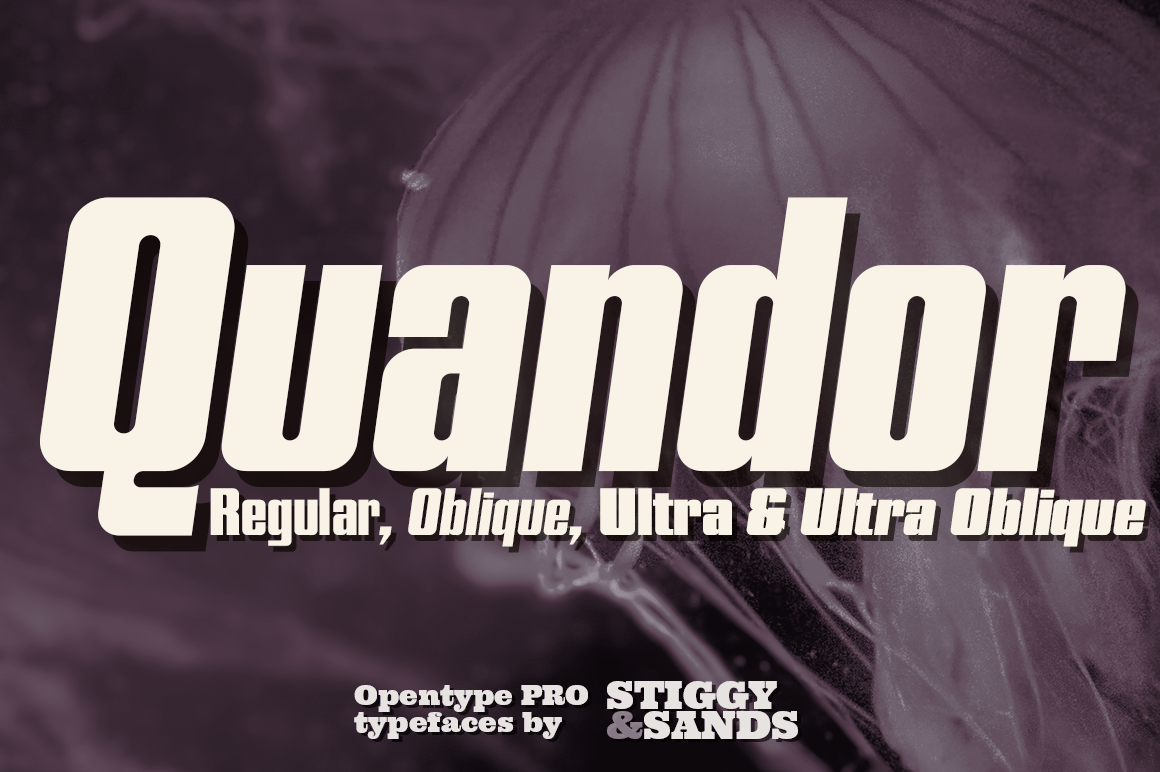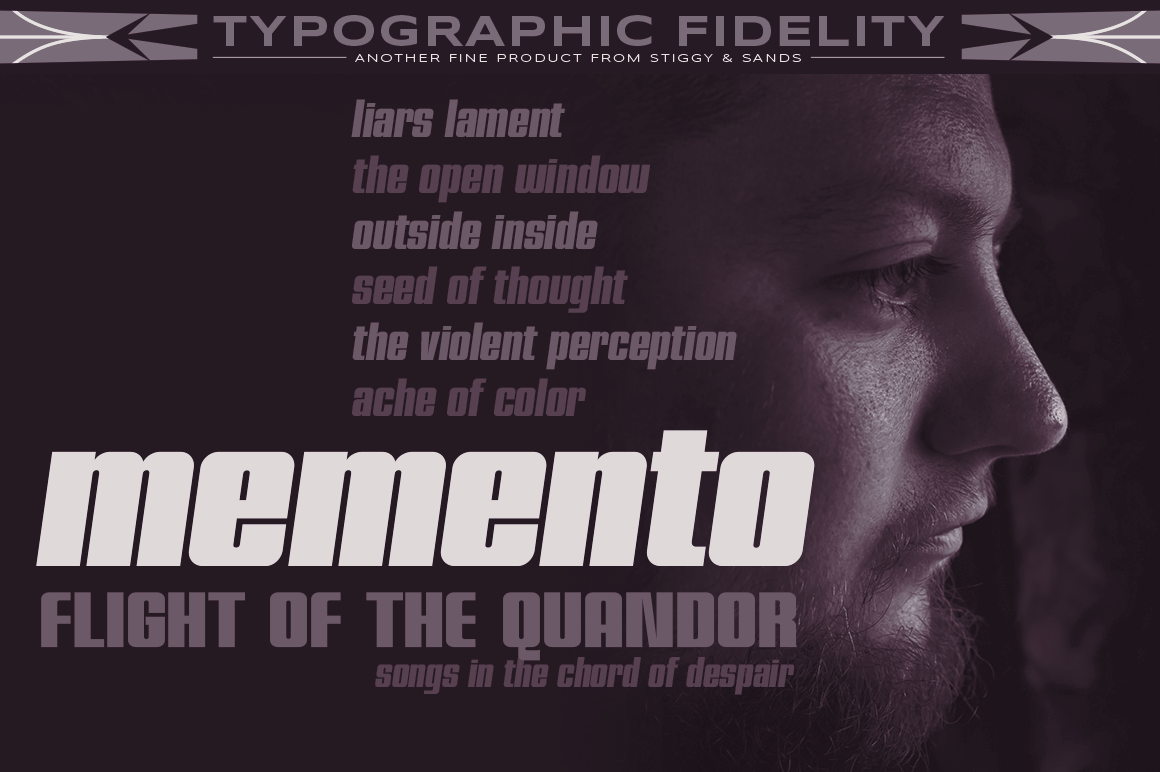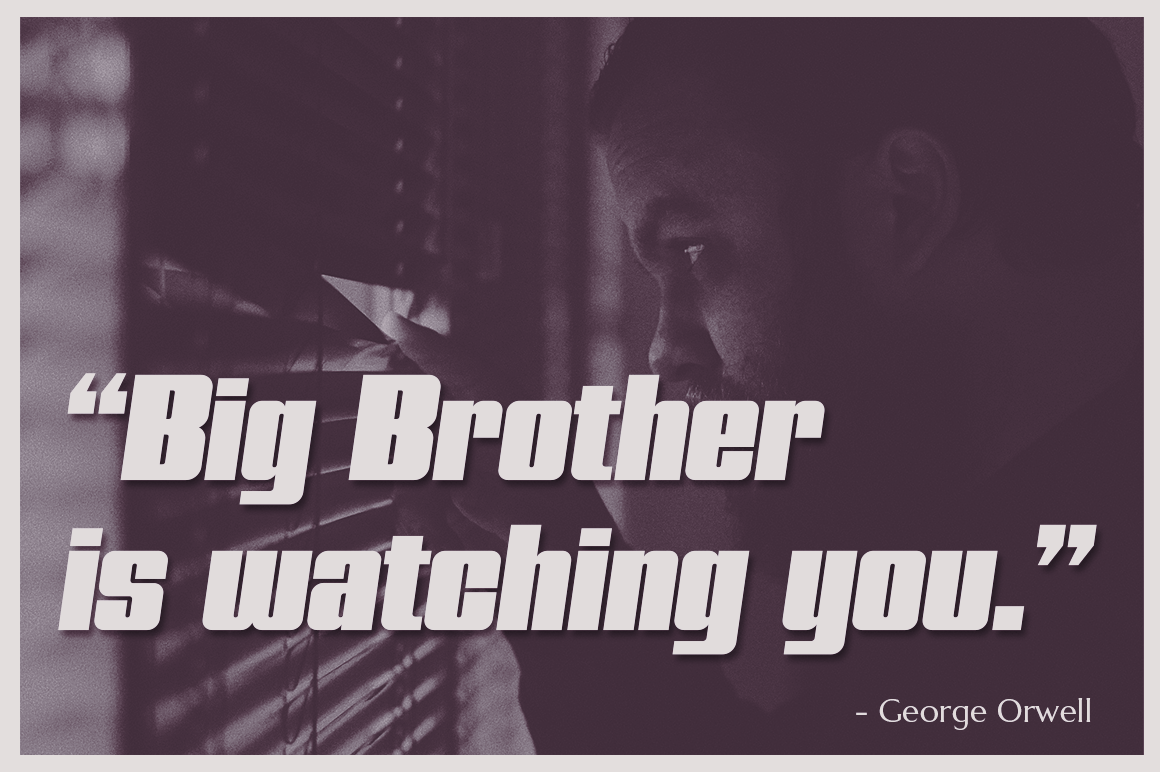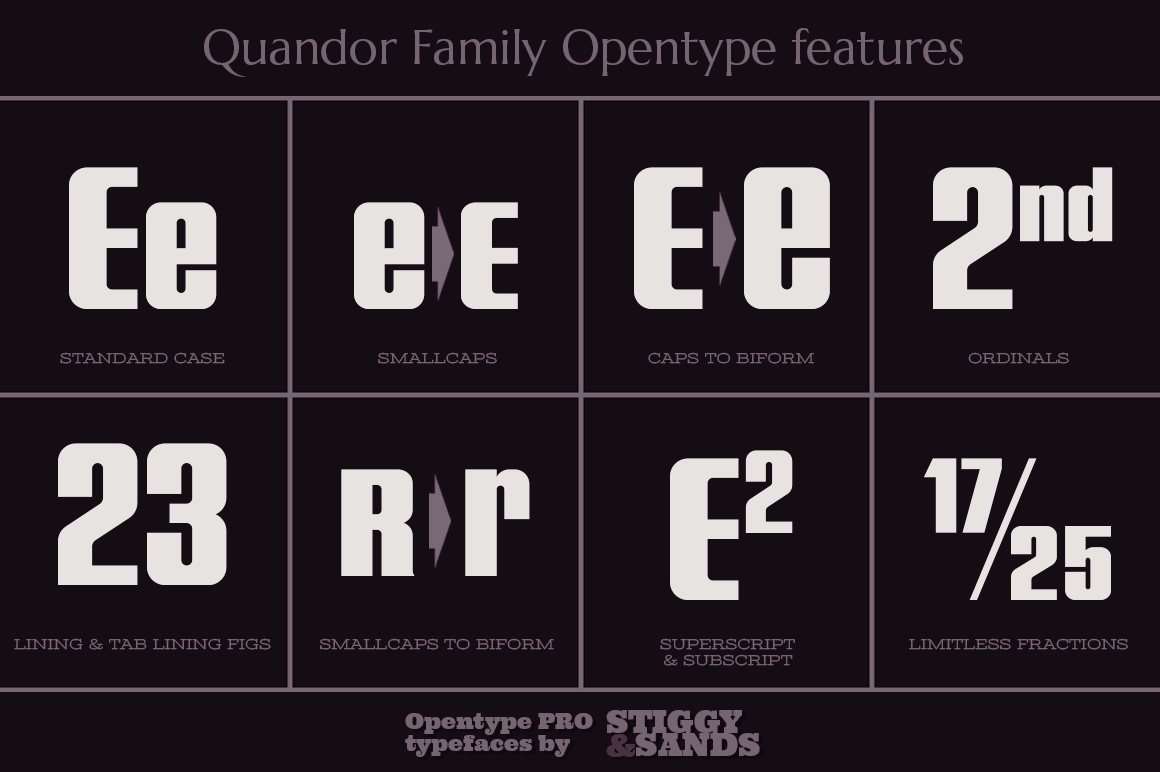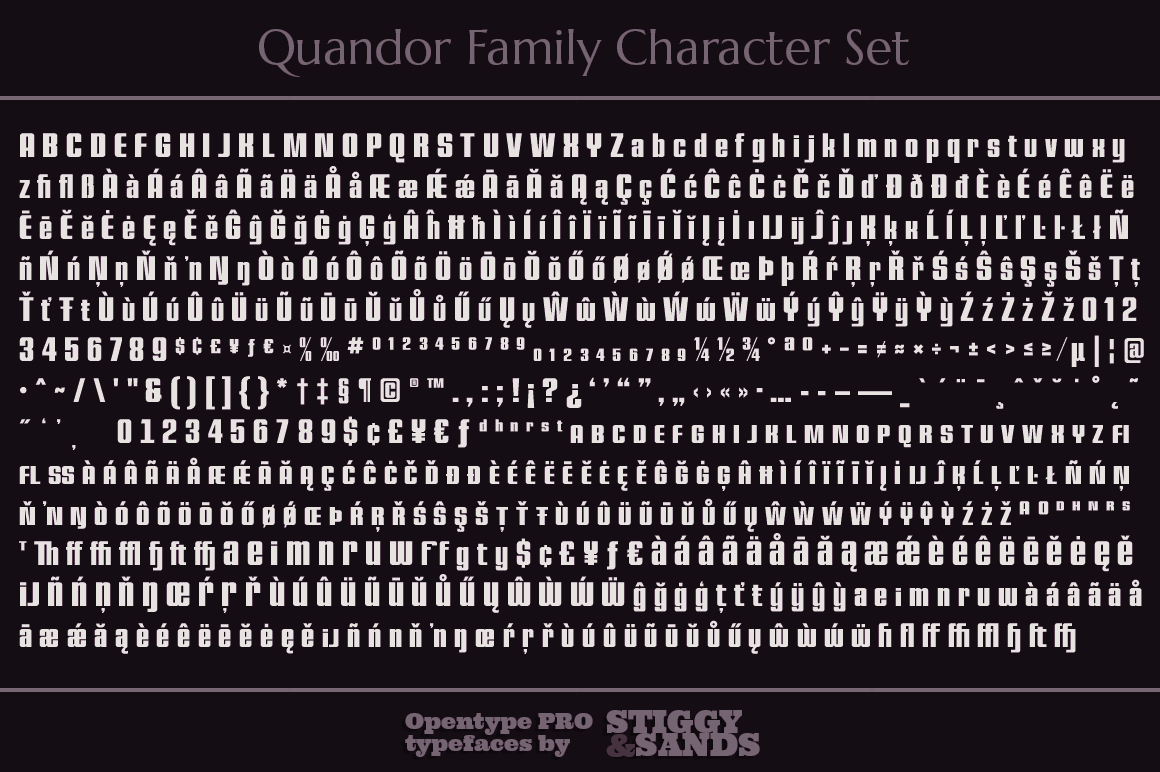
Quandor
Font Family by Stiggy & Sands
The Quandor Family began as a digitization of a film typeface from LetterGraphics known simply as "Impacta". The original specimen included standard Capitals and Lowercase, as well as a Biform character set.
We've fleshed out the original style and added an Oblique to the family, but we just couldn't leave it alone at that, and beefed it up to include an Ultra Black and Ultra Black Oblique style as well, because uber heavyweight font styles are the bees knees. Chocked full of features, including Biform alternates, SmallCaps, and SmallCaps Biform alternates, this family is built to perform.
Opentype features include:
- Full set of Inferiors and Superiors for limitless fractions.
- SmallCaps feature.
- Tabular and Proportional figure sets.
- A small collection of Standard Ligatures.
- Stylistic Alternates for Biform alternates and SmallCaps Biform alternates.
Approx. 818 Character Glyph Set: Each style of Quandor comes with a glyphset that includes standard & punctuation, international language support, and additional features.